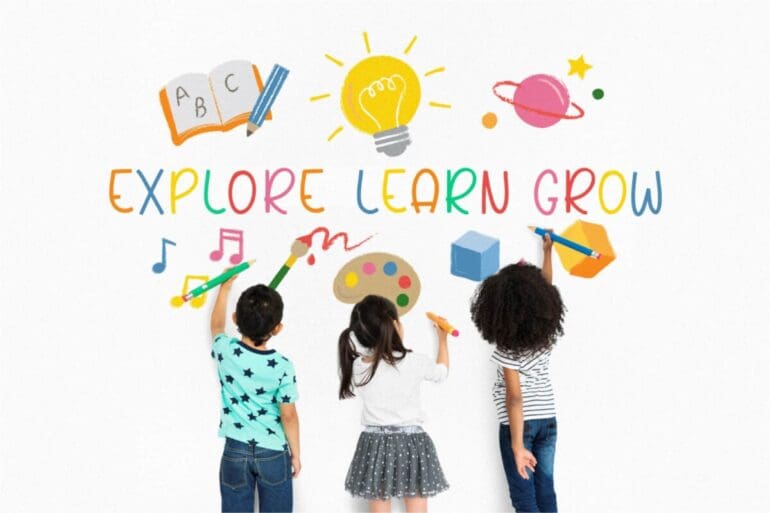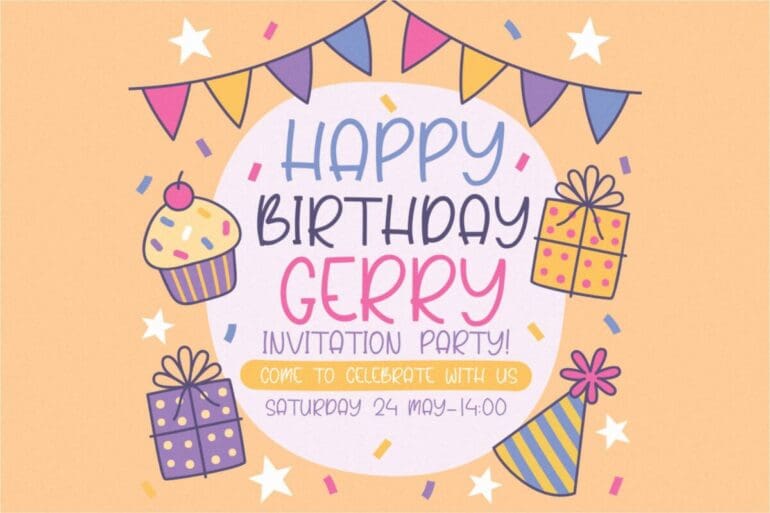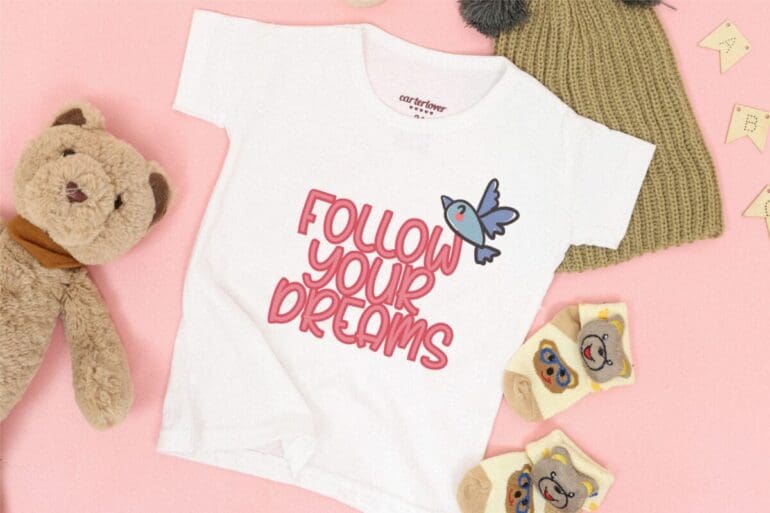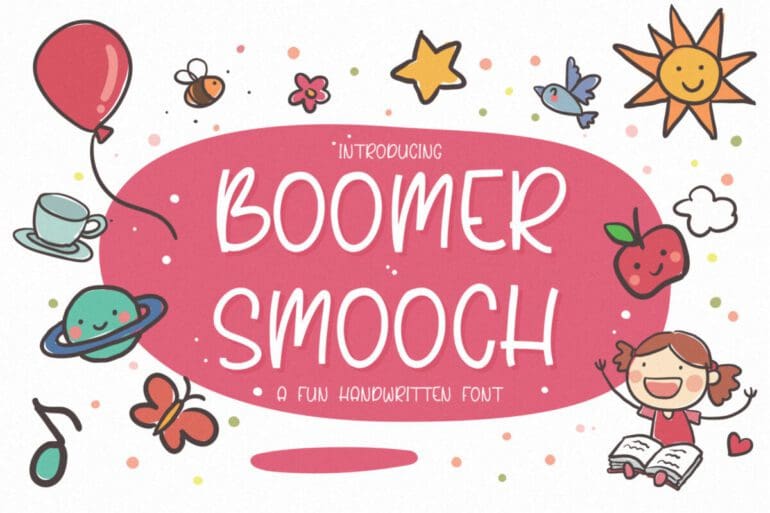
Boomer Smooch Font
Boomer Smooch is a simple, quirky and adaptable handwritten font. Its informal style and casual vibe will make this font a go-to choice for each of the creations that require a relaxed touch.